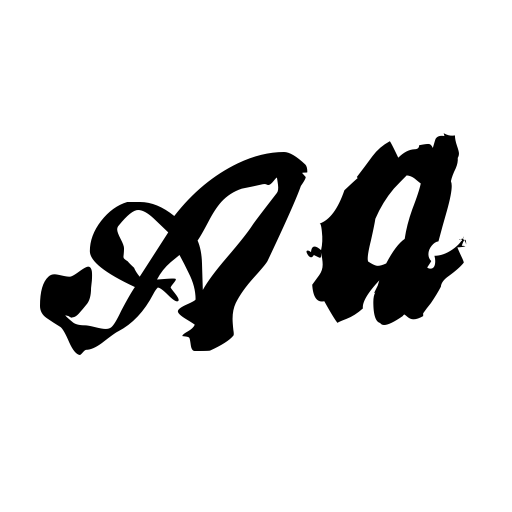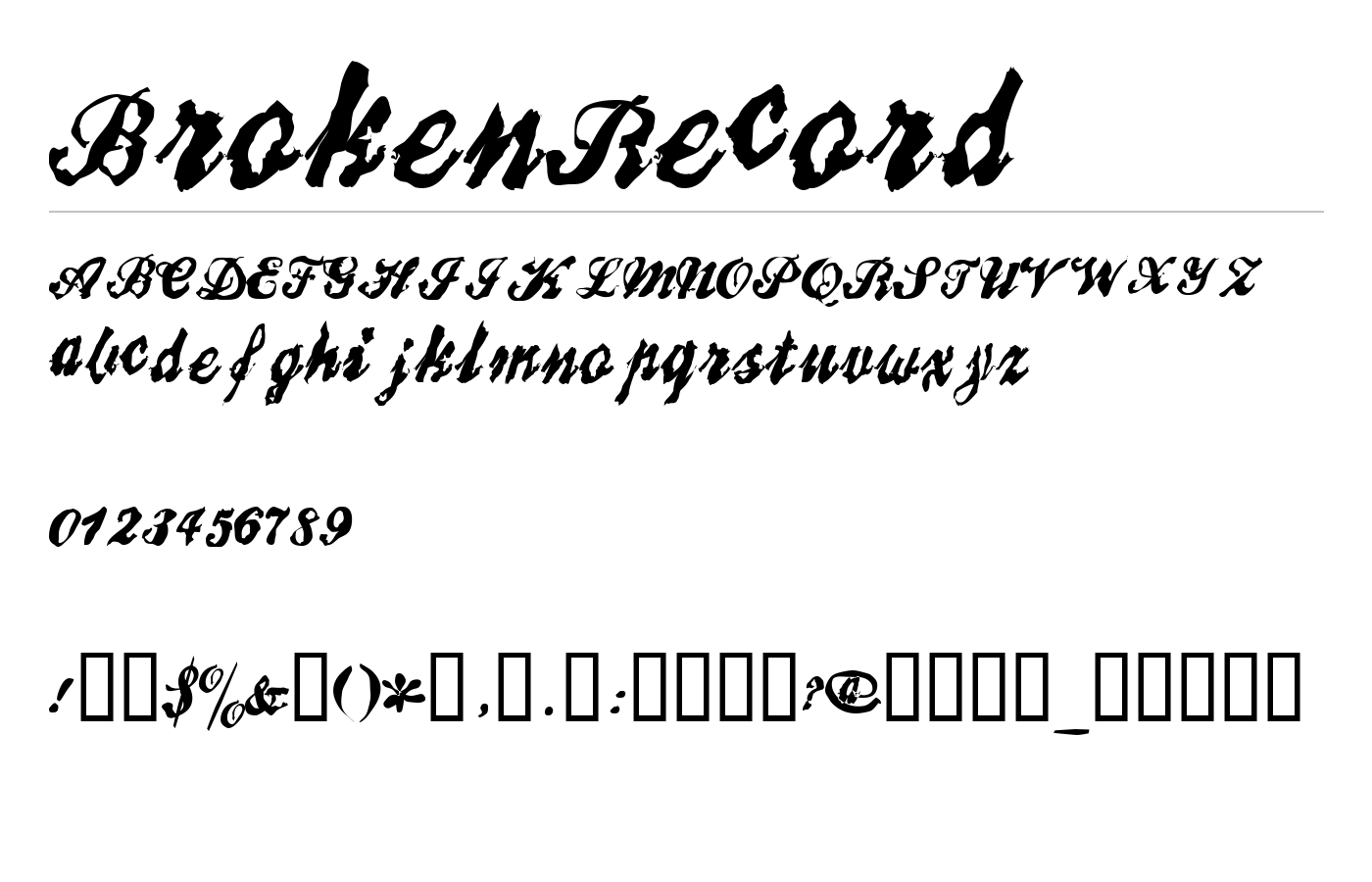
BrokenRecord is a bold, decorative script font featuring rough, uneven strokes that give it a distressed, vintage feel. Its heavily textured and irregular letterforms add character and a sense of retro charm, making it ideal for eye-catching logos, posters, and designs seeking a rugged yet nostalgic style. This font works best in display settings where its unique personality can stand out.
BrokenRecord Font
About BrokenRecord Font